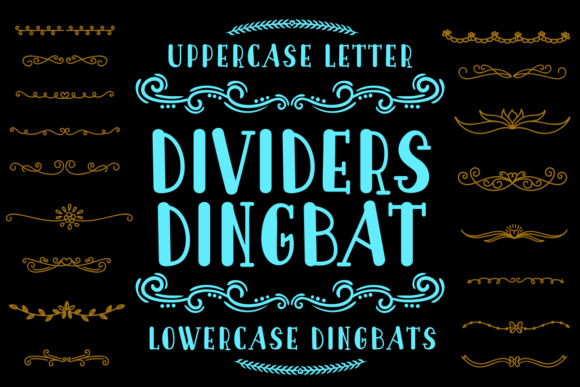
Unleash your creativity with the Dividers Dingbat Font, a typographic playground where uppercase letters dance alongside 26 lowercase dingbats. Dazzle your designs with a symphony of playful embellishments that transform ordinary text into captivating visual masterpieces.
Imagine the possibilities as you let your imagination run wild, adorning your projects with an array of whimsical characters, intricate borders, and eye-catching symbols. This font is your passport to a world of boundless creativity, where you can craft designs that speak to the heart and leave a lasting impression.
It's the perfect font for adding a touch of whimsy and charm to your designs. Whether you're creating invitations, social media graphics, or website banners, the Dividers Dingbat Font will add a touch of personality and flair.